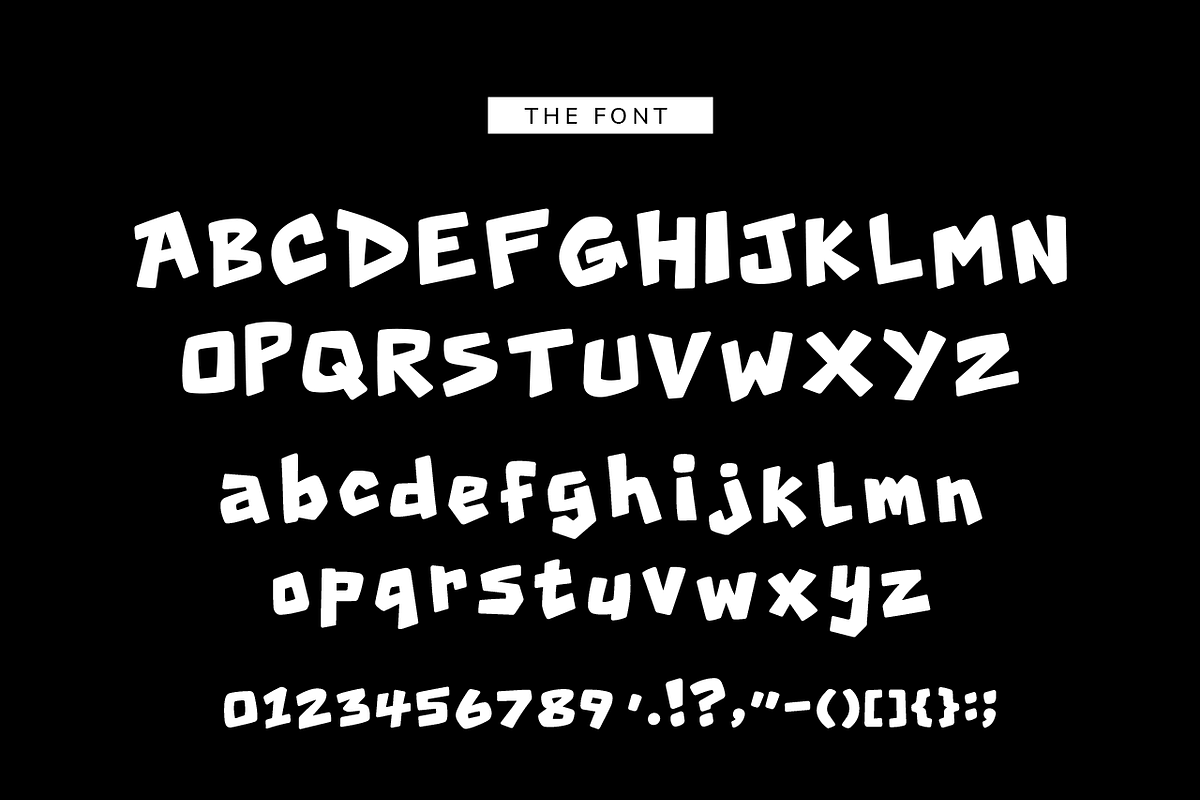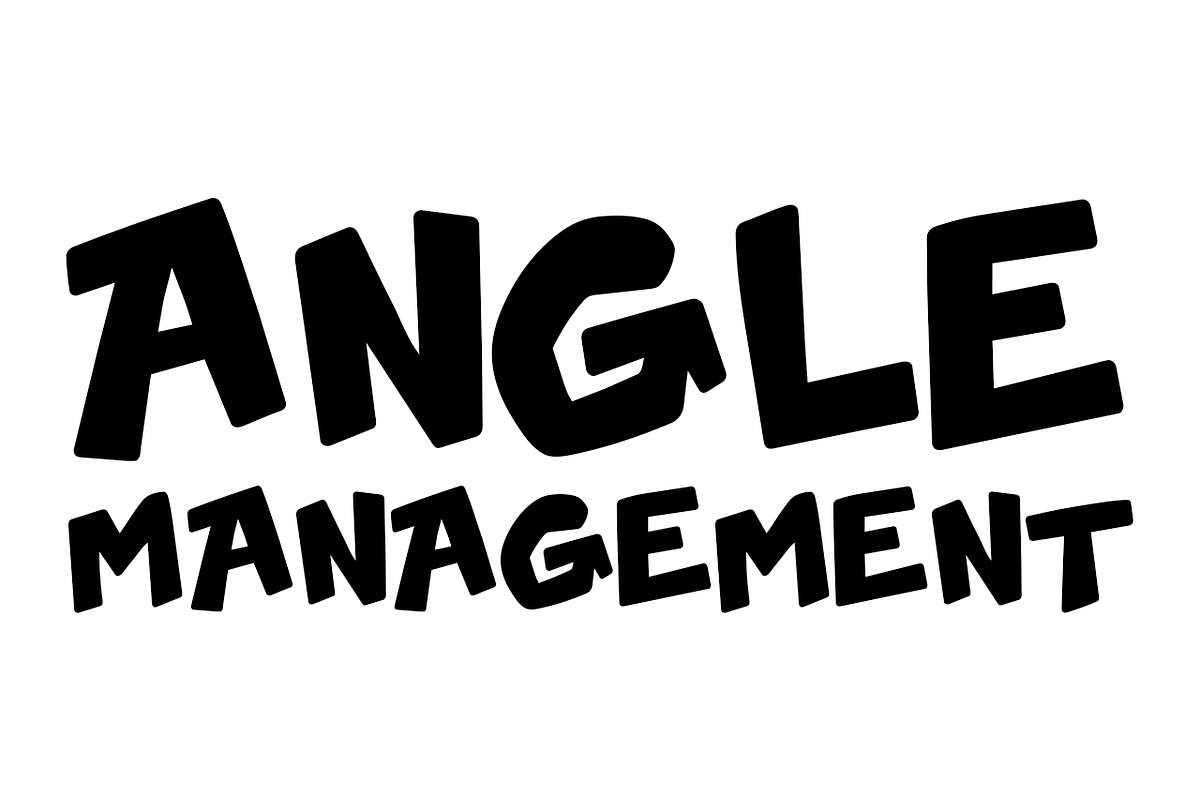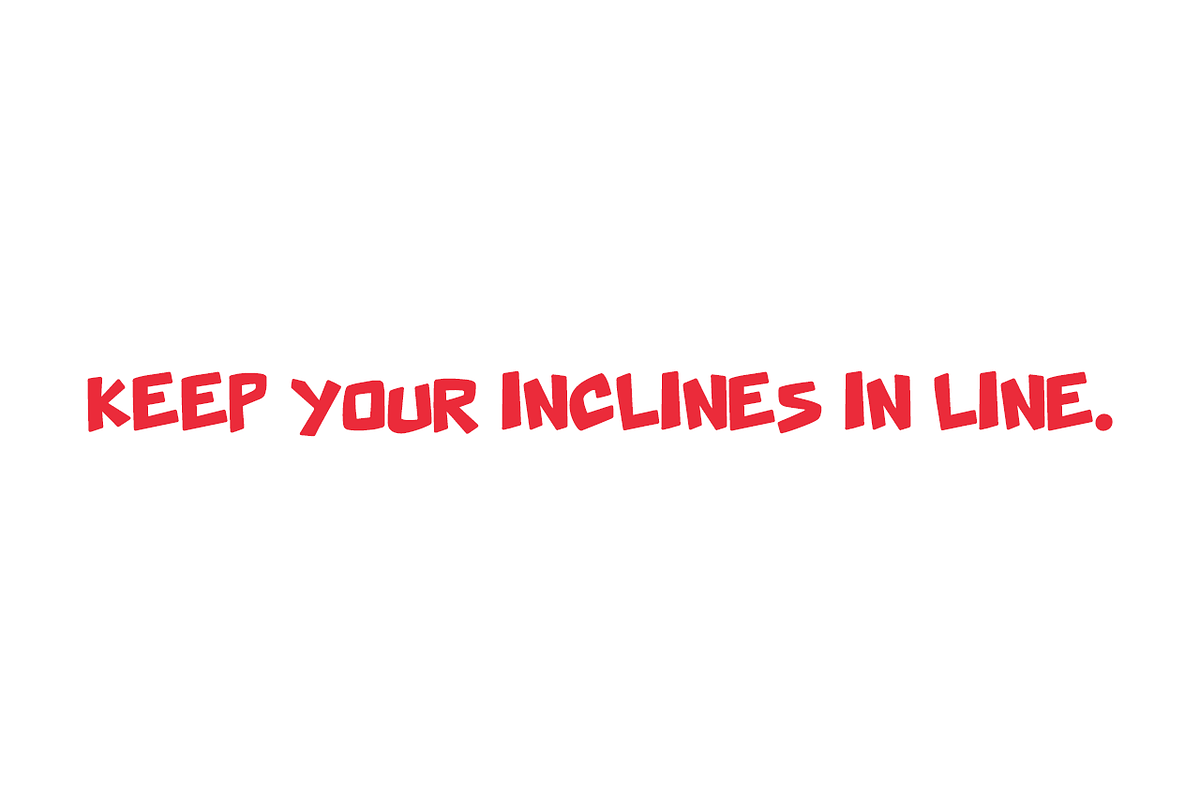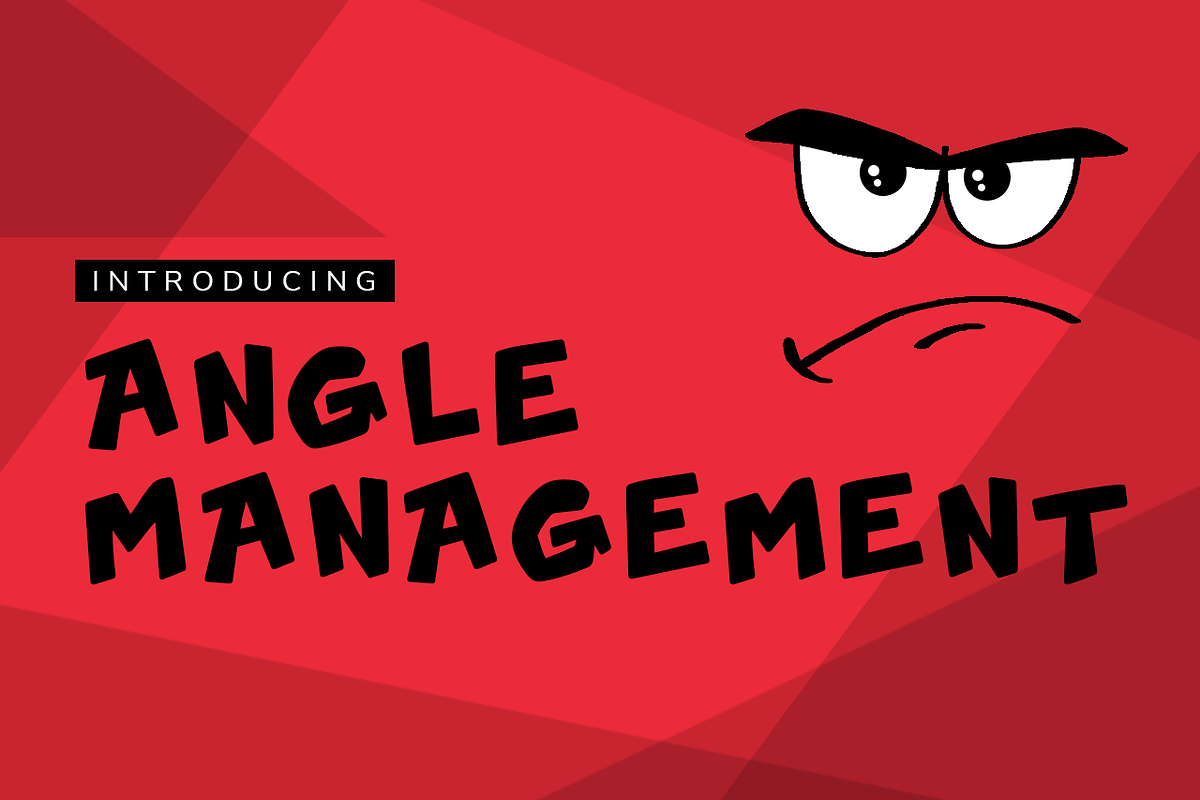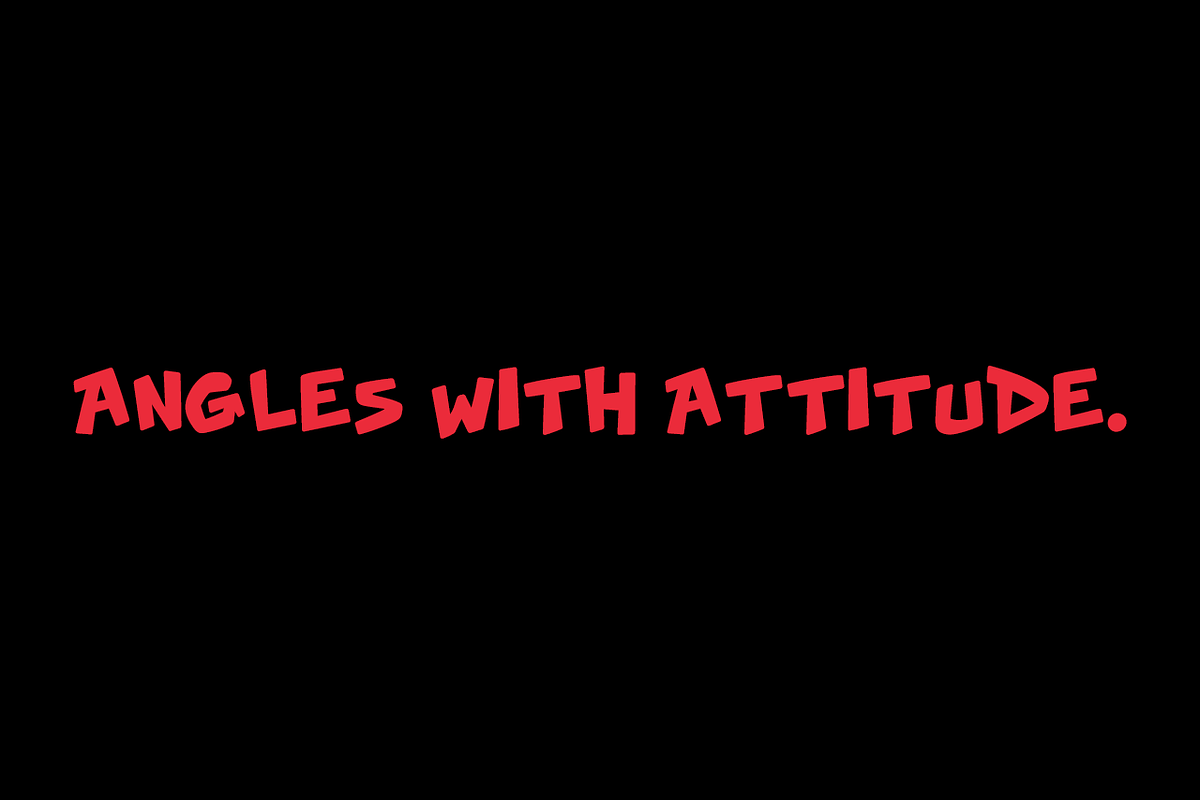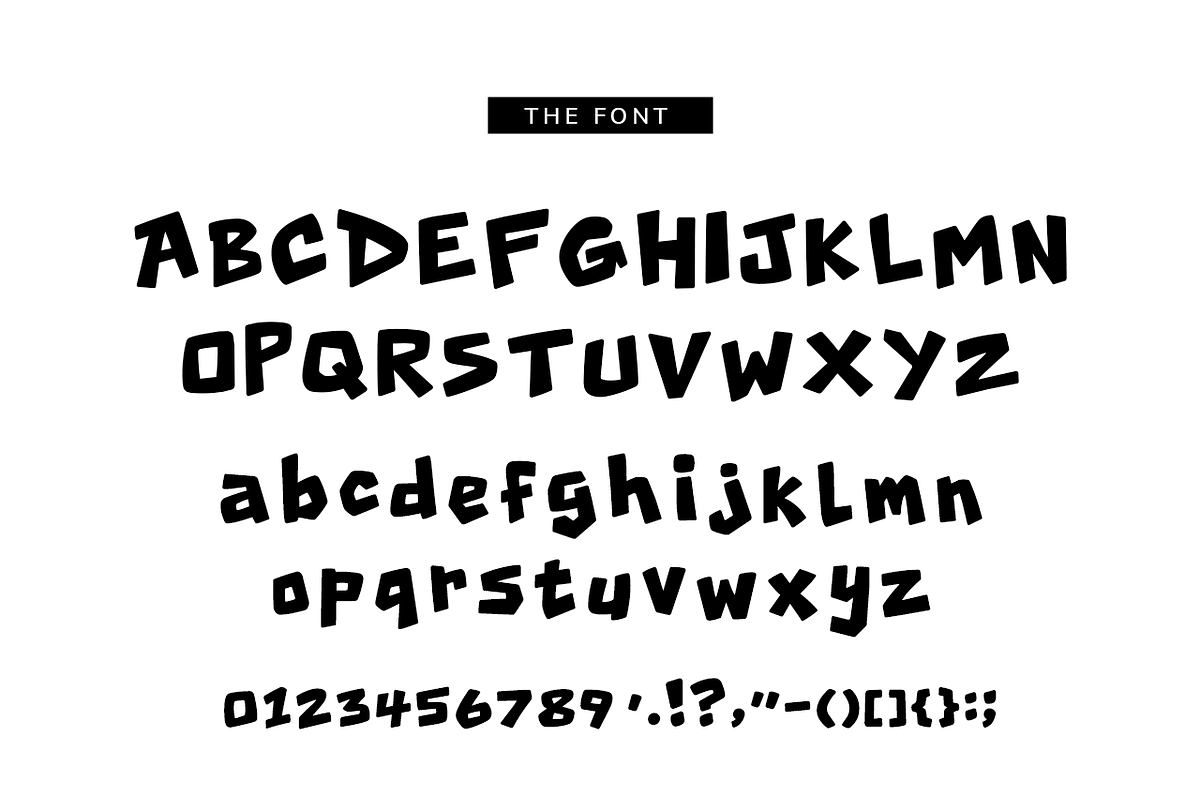
Angle Management
Angle Management — A Font With an Attitude
Take control of your typography with Angle Management — a bold and distinctive display font designed to bring personality, attitude, and plenty of visual impact to your projects.
With its strong character and eye-catching presence, Angle Management is made for designs that need to stand out. Use it for posters, logos, apparel, album artwork, packaging, social media graphics, stickers, headlines, branding, invitations, and more.
Whether you're creating something edgy, playful, unconventional, or simply want your typography to demand attention, Angle Management is ready to take charge.
From bold headlines to creative branding, Angle Management brings a whole new attitude to your type.
Manage your angles. Make your statement.